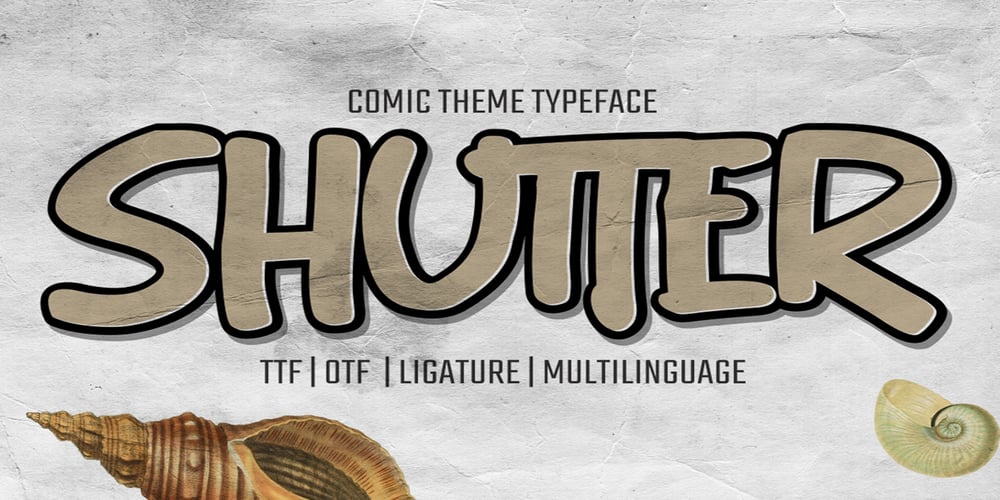
Shutter Font Family was designed by Abdul Malik Wisnu, Anang Fibriyanto and published by Gassstype. Shutter contains 1 styles and family package options. Introducing Shutter is a handwritten brush that is written casually and quickly. Letters are made with brushes on Procreate. Then crafted carefully drawn into vector format. That is why Shutter has charming, authentic and relaxed characteristic more natural look to your text with a more natural look to your text.